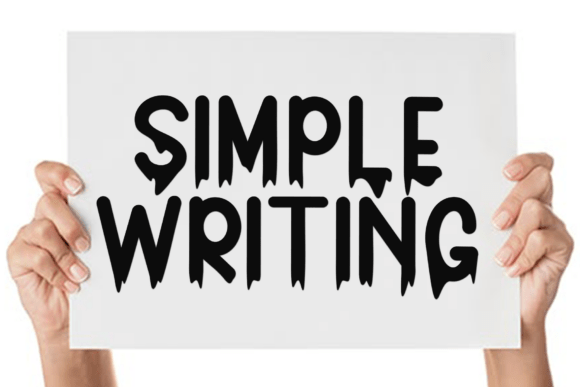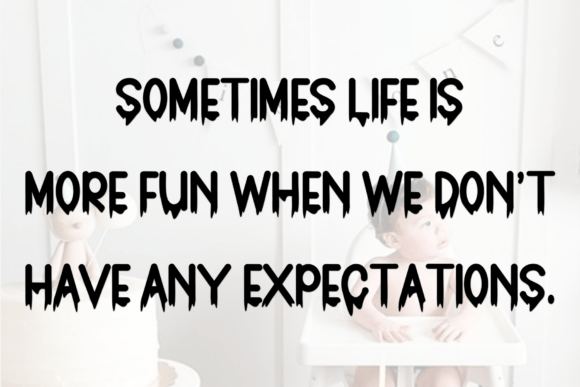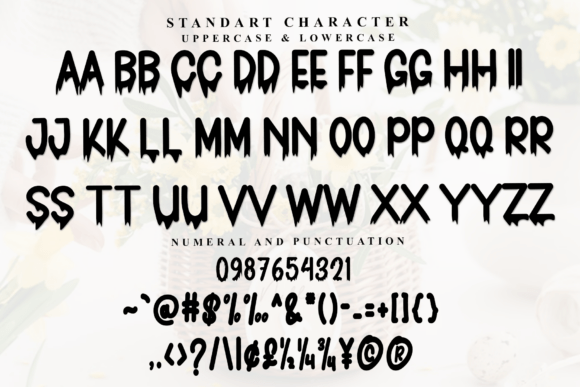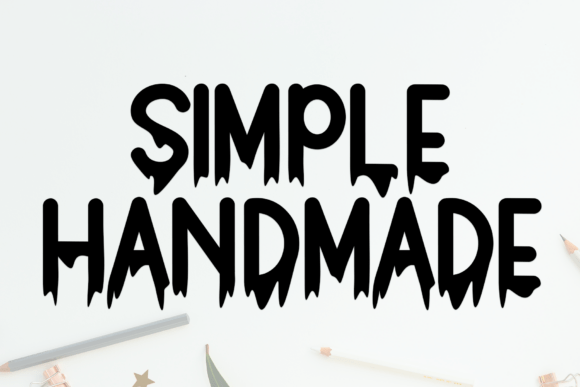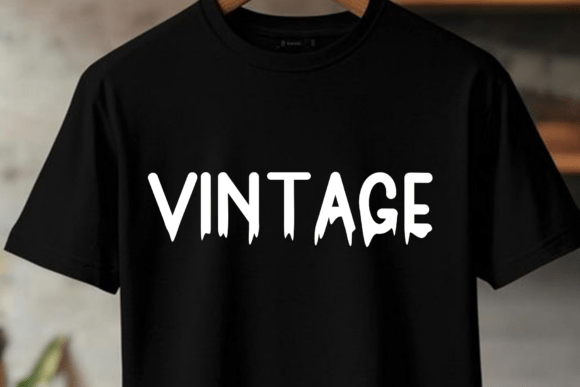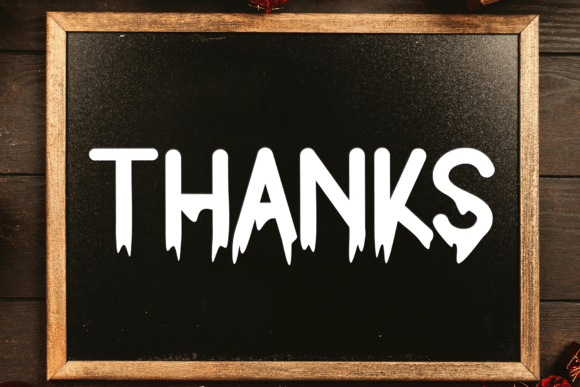
Unleash Your Creativity with Call Curse Font: A Unique and Versatile Typeface
In the world of design, a font can make all the difference in creating a lasting impression. If you’re a designer, crafter, or creative looking for a font that stands out from the crowd, look no further than Call Curse Font. This beautiful and eye-catching typeface is designed with a soft, unique touch that will elevate your designs and leave a lasting impact on your audience.
The Distinctive Character of Call Curse Font
Call Curse Font boasts distinctive strokes that give it a special character, making it meaningful and versatile for future use. Its unique design ensures that your designs will stand out from the crowd, whether you’re working on a creative project, crafting a logo, or developing a brand identity. With a wide range of characters, Call Curse Font is perfect for design projects, crafts, and other creative works.
With Call Curse Font, the creative possibilities are endless. Use it to:
- Create stunning logos and brand identities
- Design eye-catching posters, flyers, and brochures
- Craft beautiful handmade cards and invitations
- Develop unique and engaging digital content
- Enhance your website or blog with a distinctive font
Why Choose Call Curse Font?
So, why choose Call Curse Font over other fonts? Here are just a few reasons:
- Unique Design: Call Curse Font has a distinctive and eye-catching design that will set your designs apart.
- Versatility: This font is perfect for a wide range of creative projects, from digital designs to print materials.
Tips for Using Call Curse Font
To get the most out of Call Curse Font, here are a few tips:
- Experiment with Different Sizes: Call Curse Font looks great in a variety of sizes, from small and delicate to large and bold.
- Play with Color: This font looks stunning in a range of colors, from bright and bold to soft and pastel.
- Mix and Match: Combine Call Curse Font with other fonts to create a unique and eye-catching design.